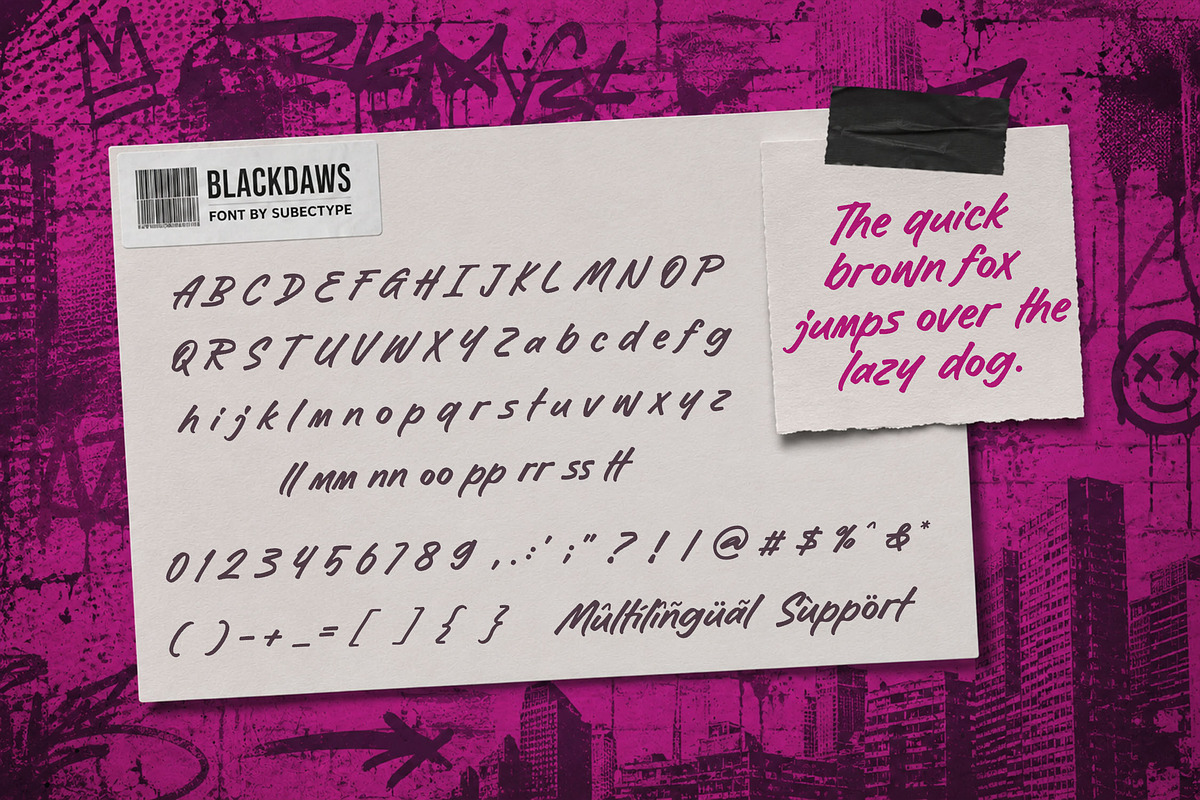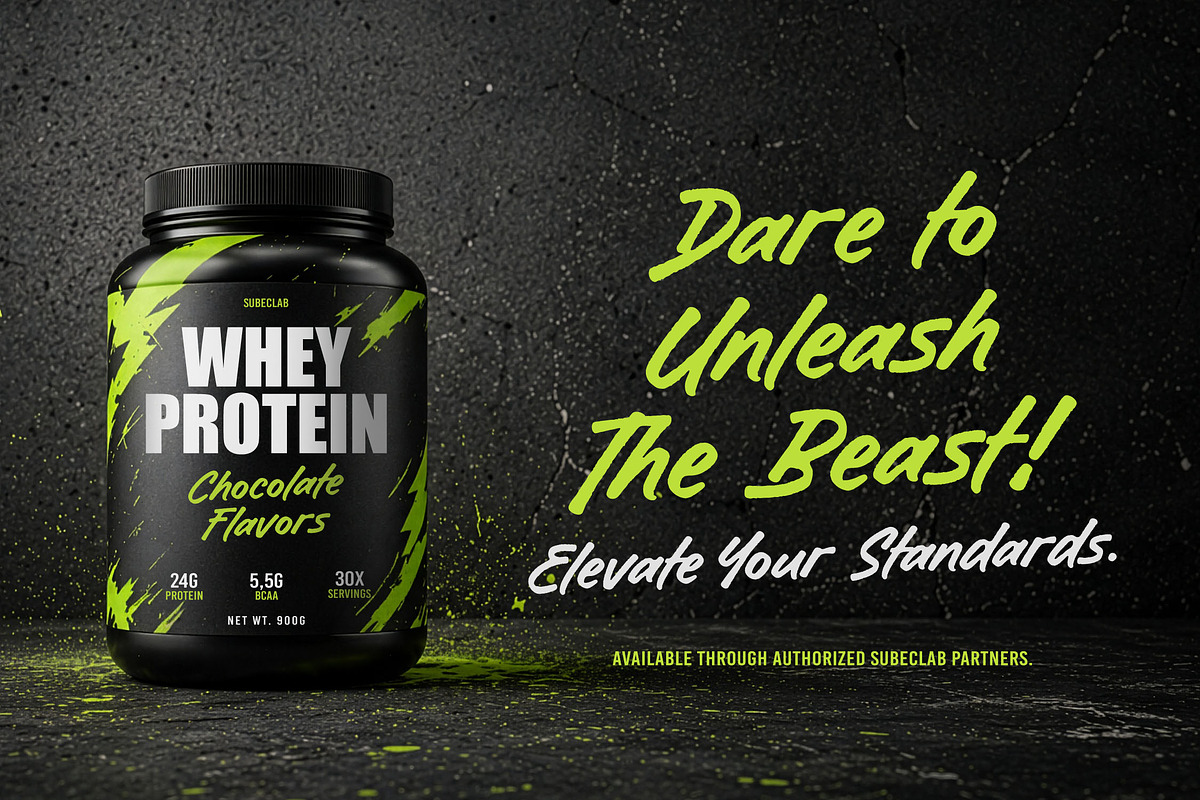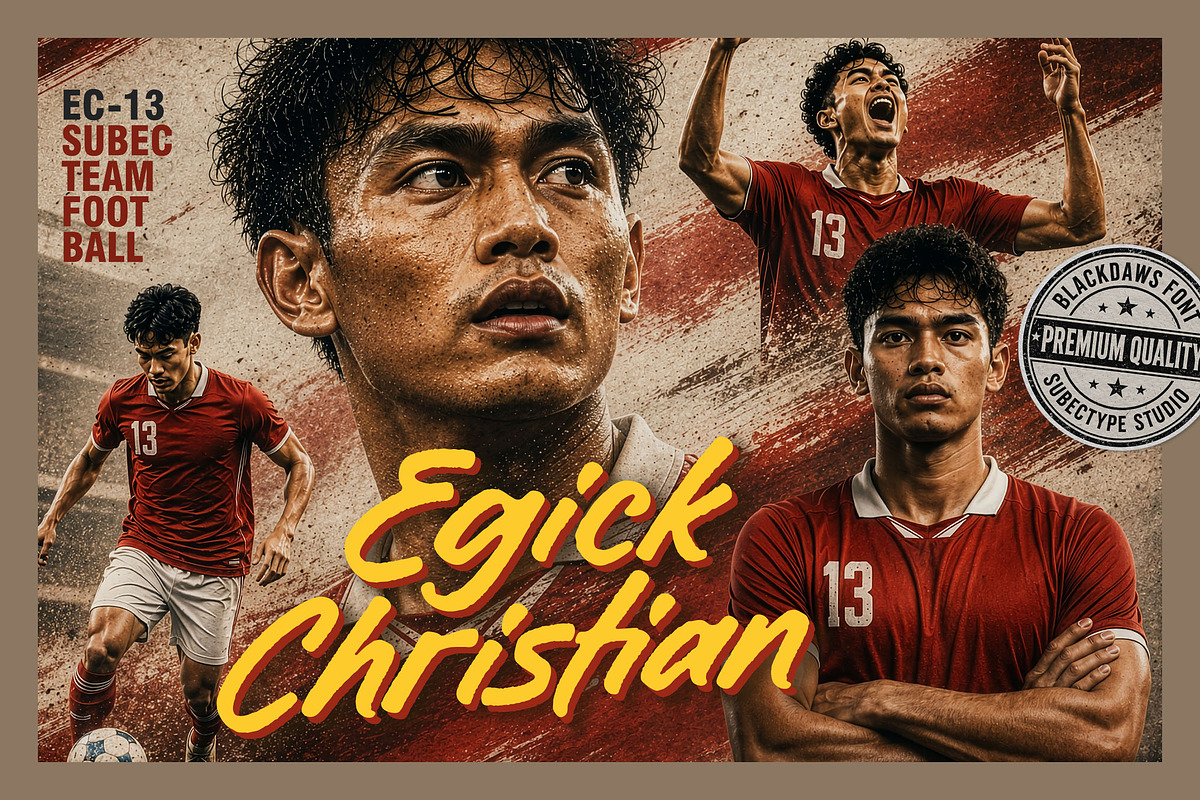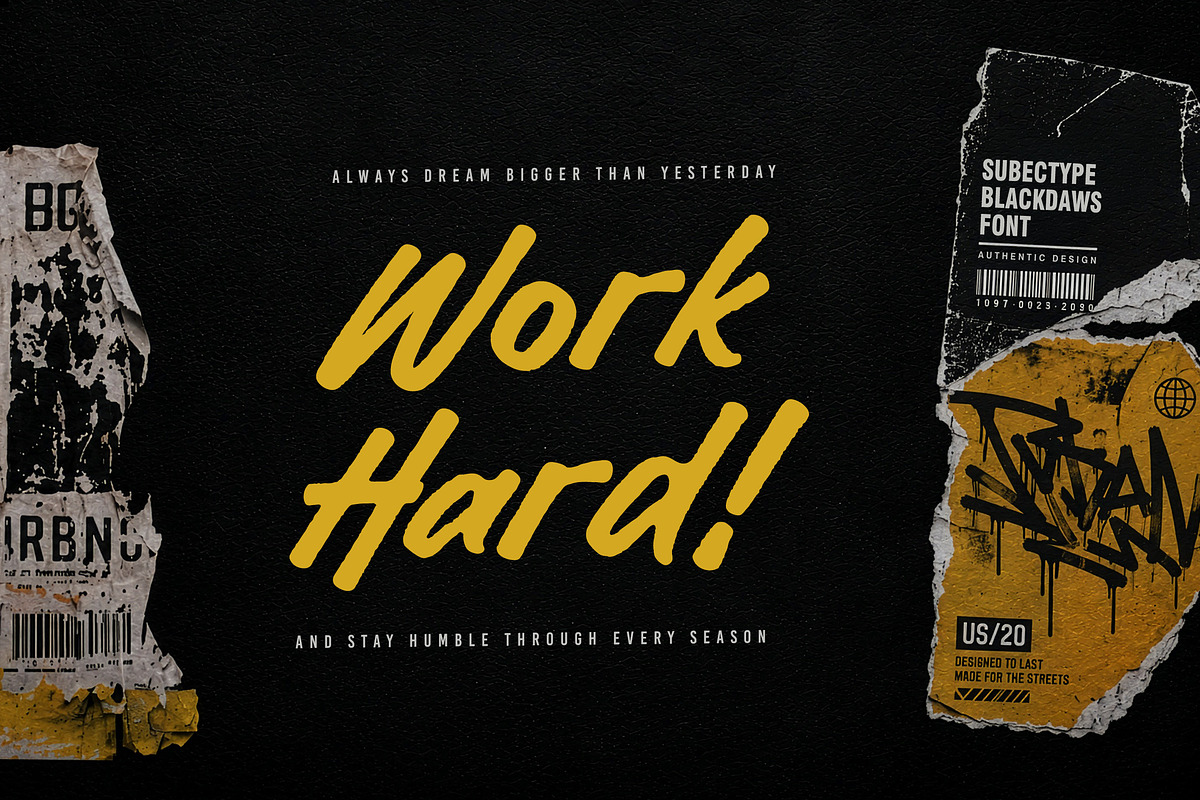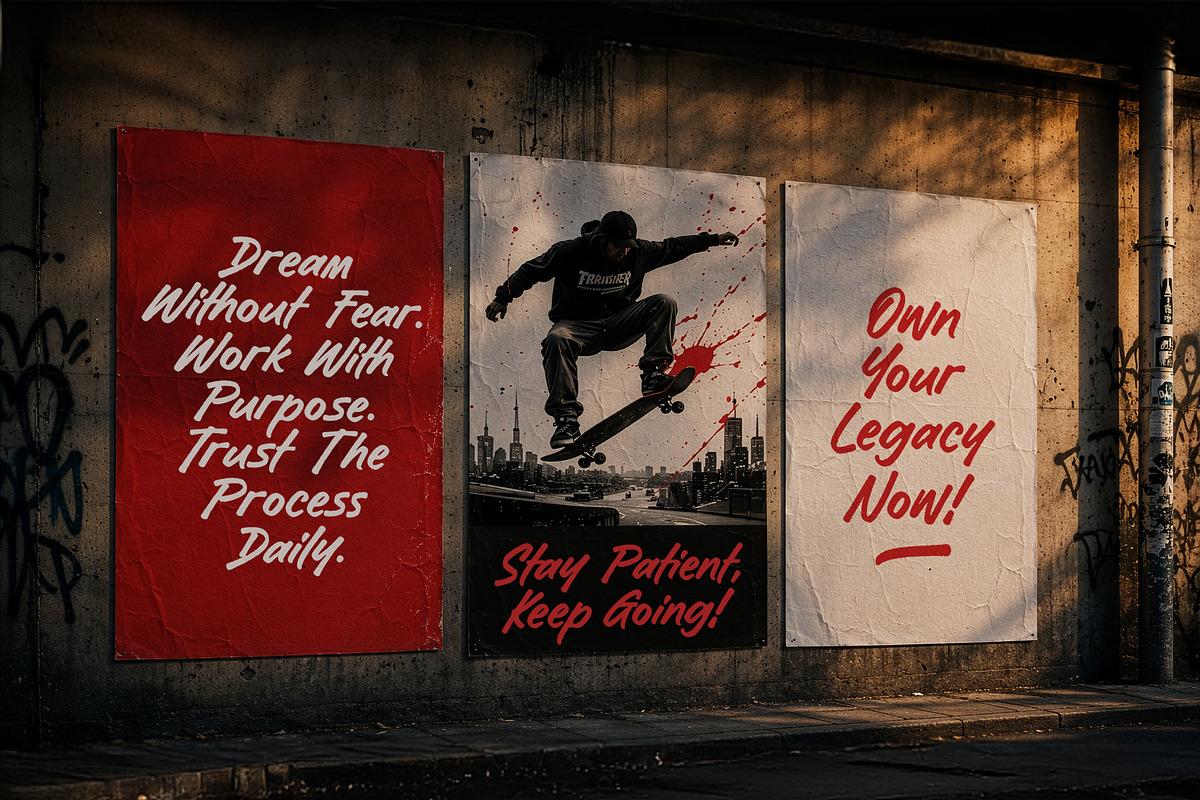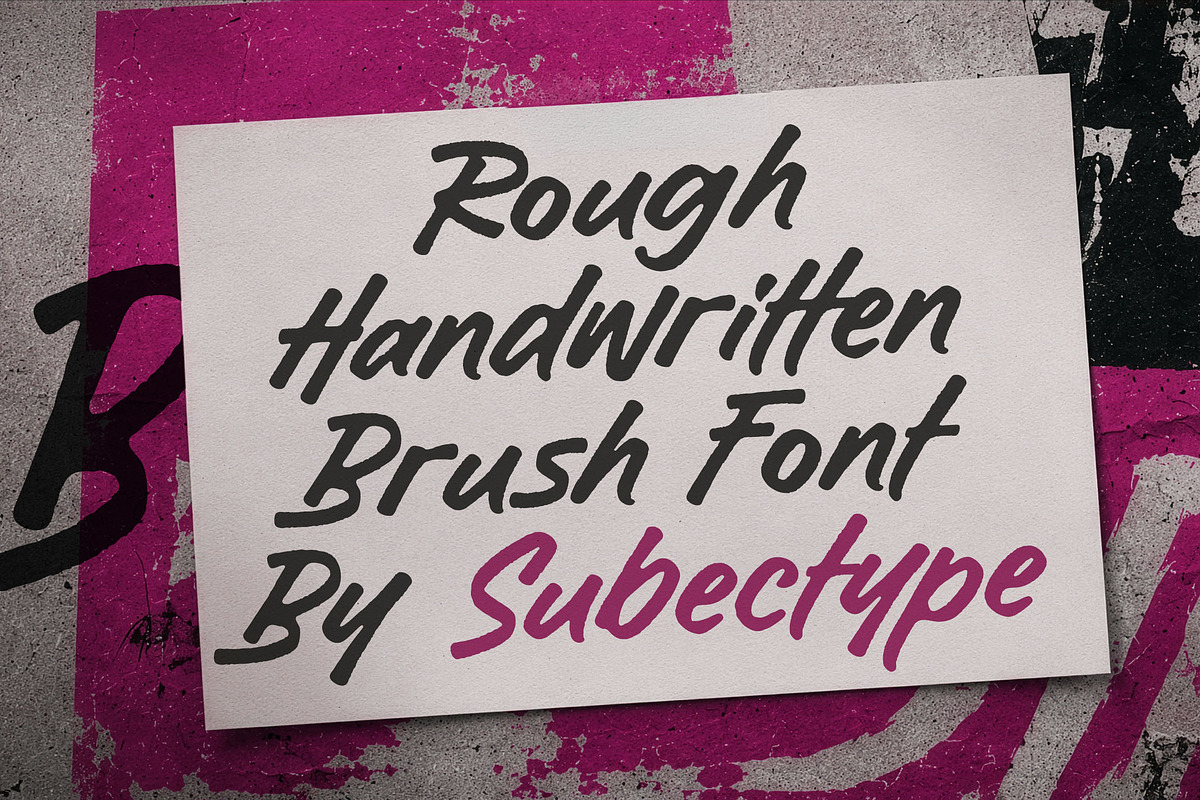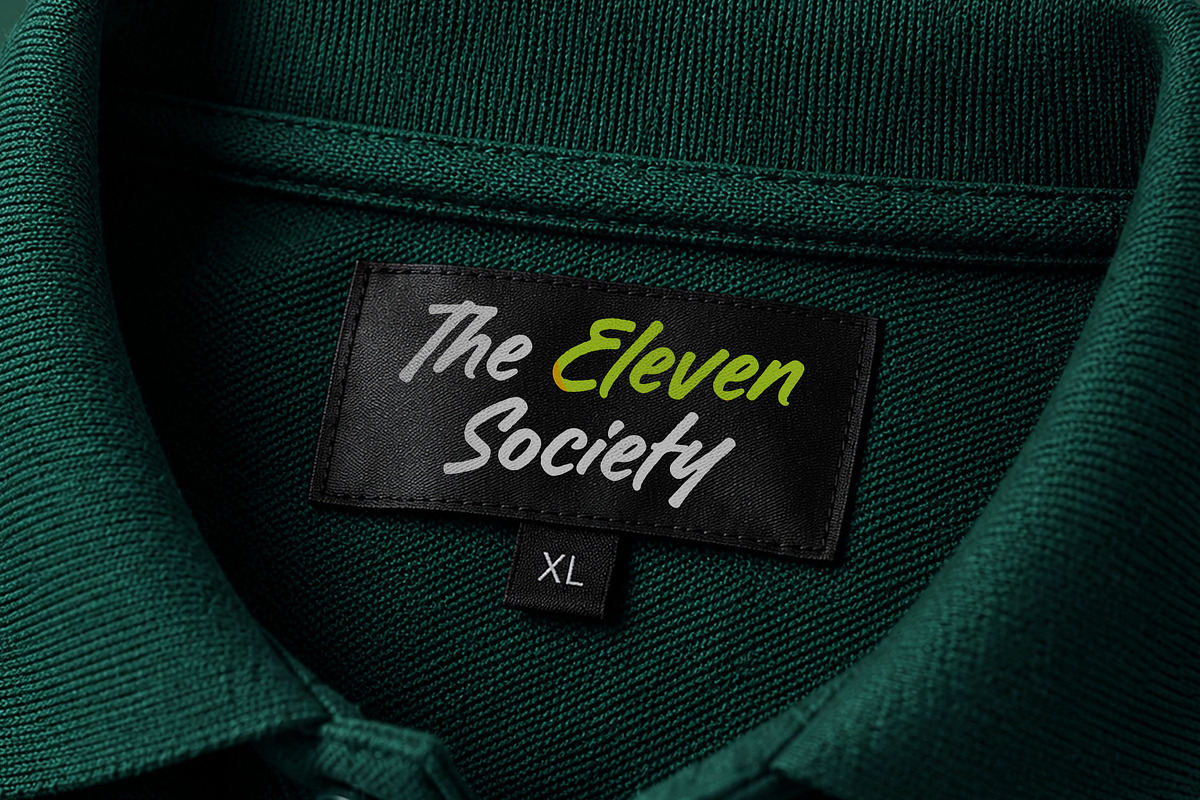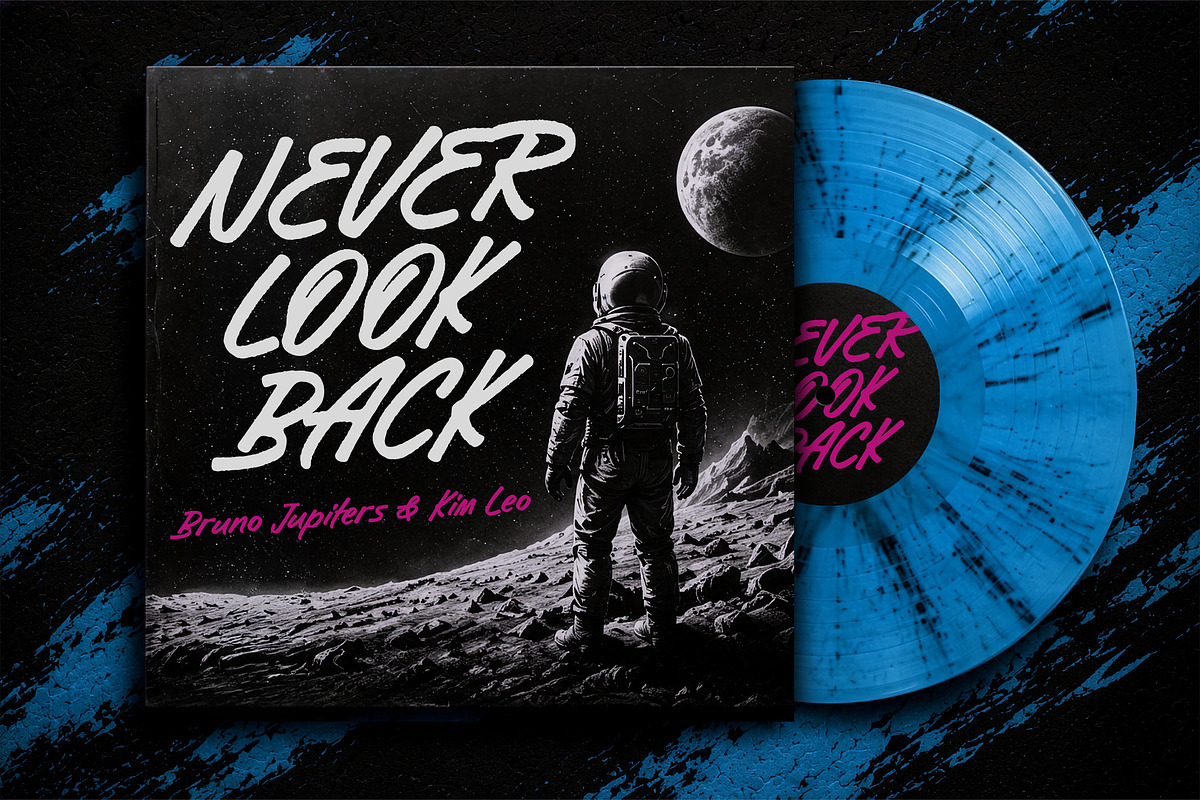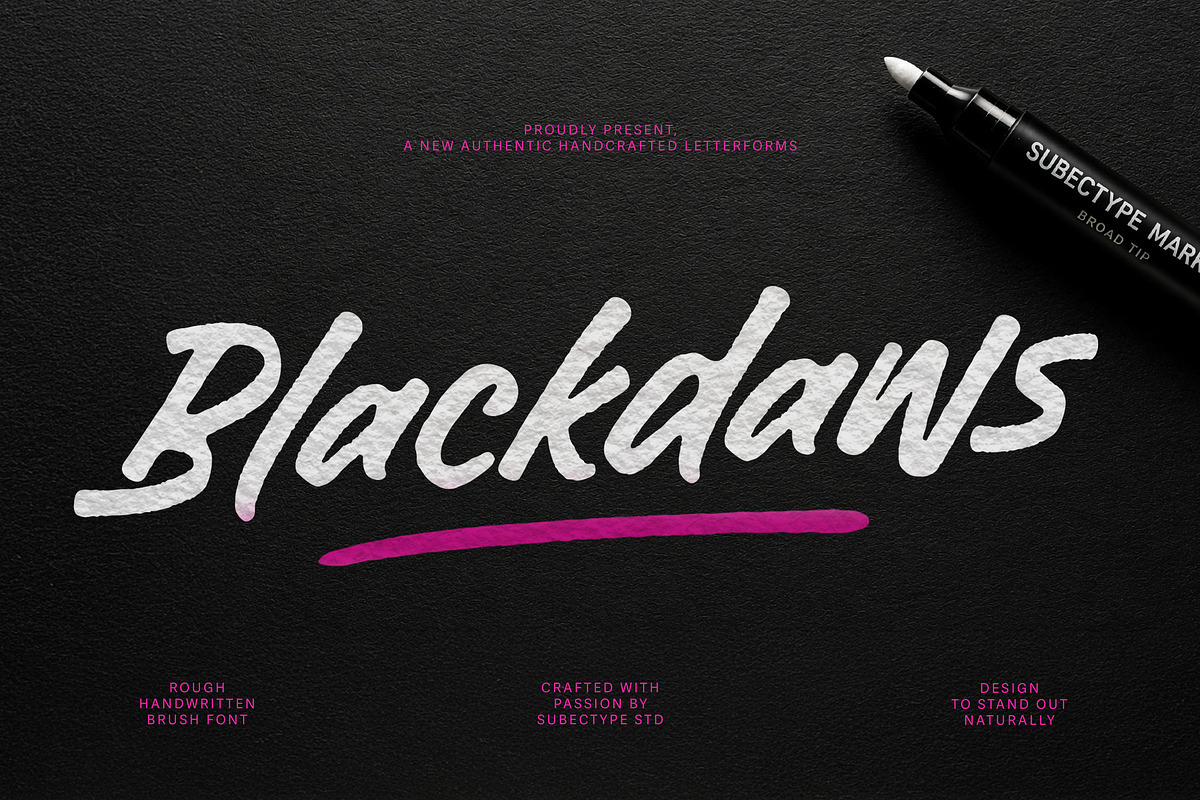
Blackdaws - Rough Handwritten Font
Blackdaws is a rough handwritten font featuring naturally separated letterforms that recreate the authentic feel of real handwriting. Designed to capture the authentic feel of real handwriting, this font combines a rough textured finish with clean readability, making every word look genuine and expressive.
Its non-connected writing style creates a casual yet versatile appearance, making it suitable for branding, logos, packaging, product labels, posters, social media graphics, YouTube thumbnails, apparel, quotes, stationery, greeting cards, invitations, and modern editorial designs. The handcrafted details add warmth and originality while maintaining excellent legibility across both print and digital projects.
Alternate Letter and Ligatures